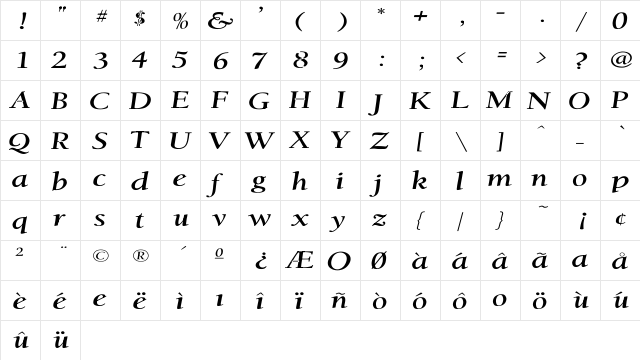
RSJacksonville Wd Regular
Design Context for RSJacksonville Wd Typeface
RSJacksonville Wd is a composed and adaptable typeface that performs quietly and consistently across a wide range of design contexts.